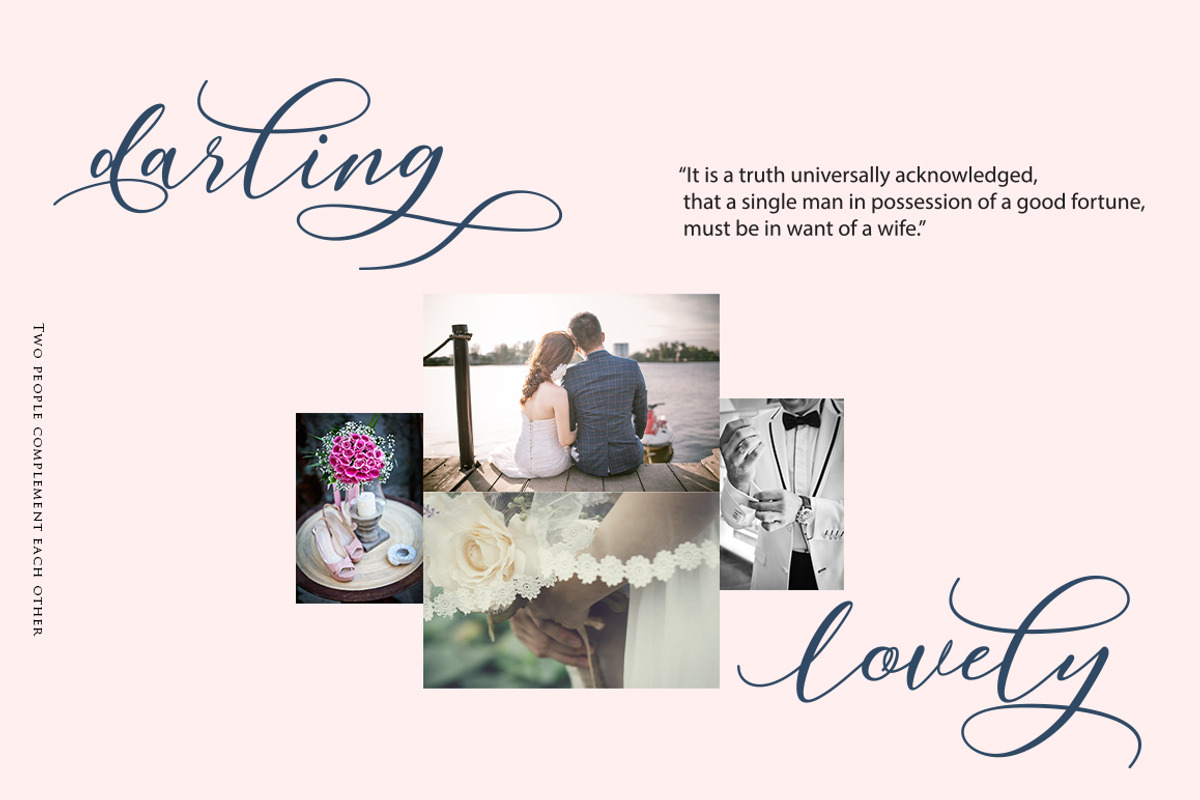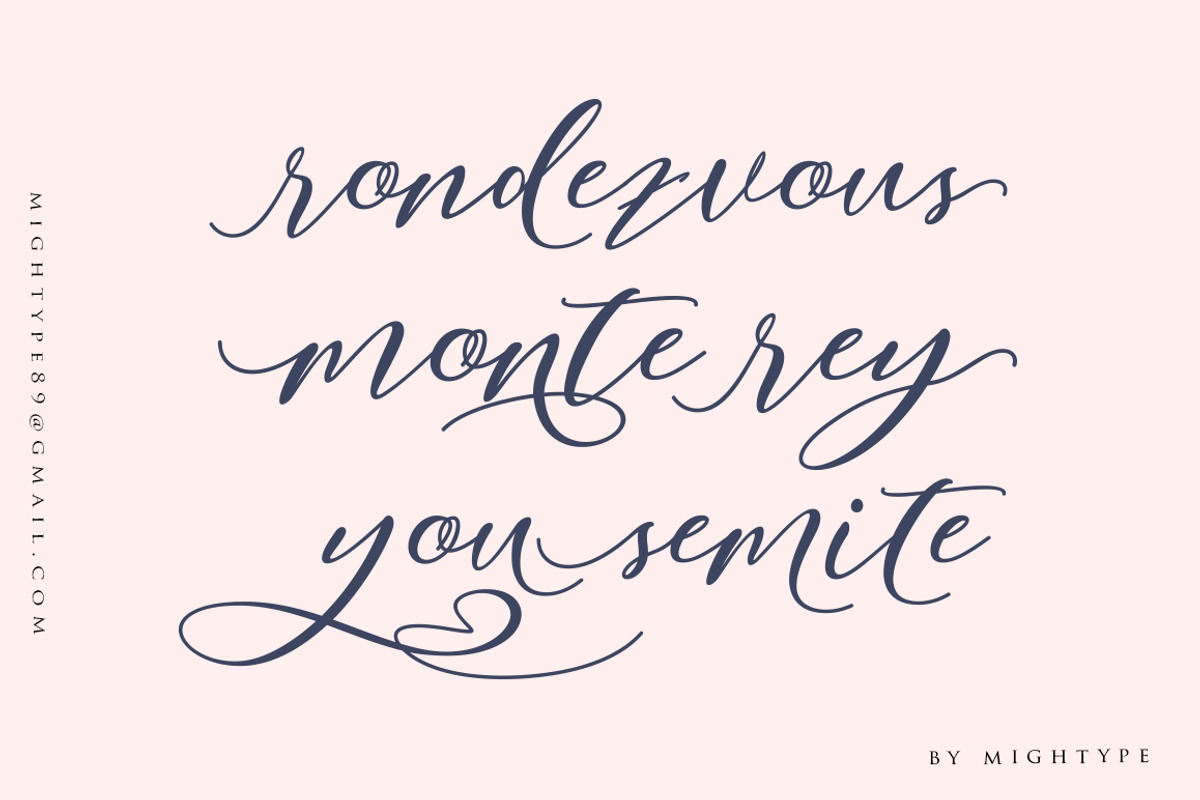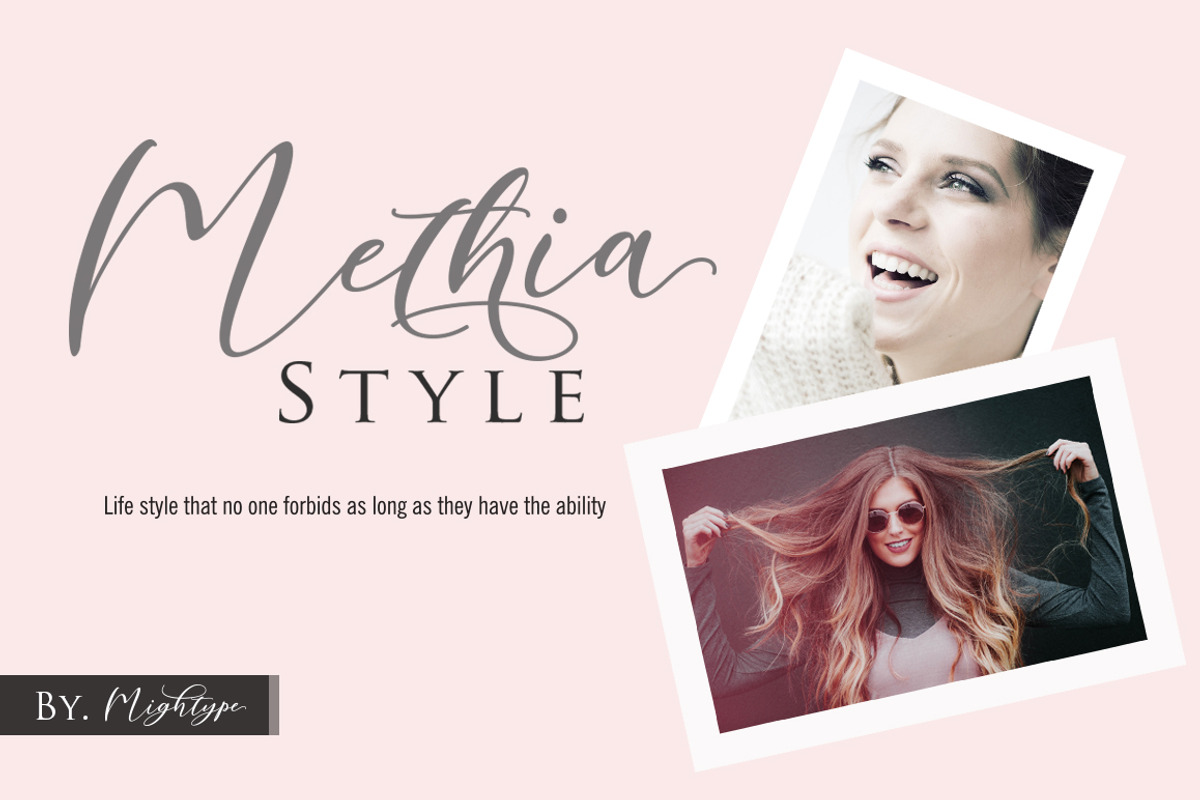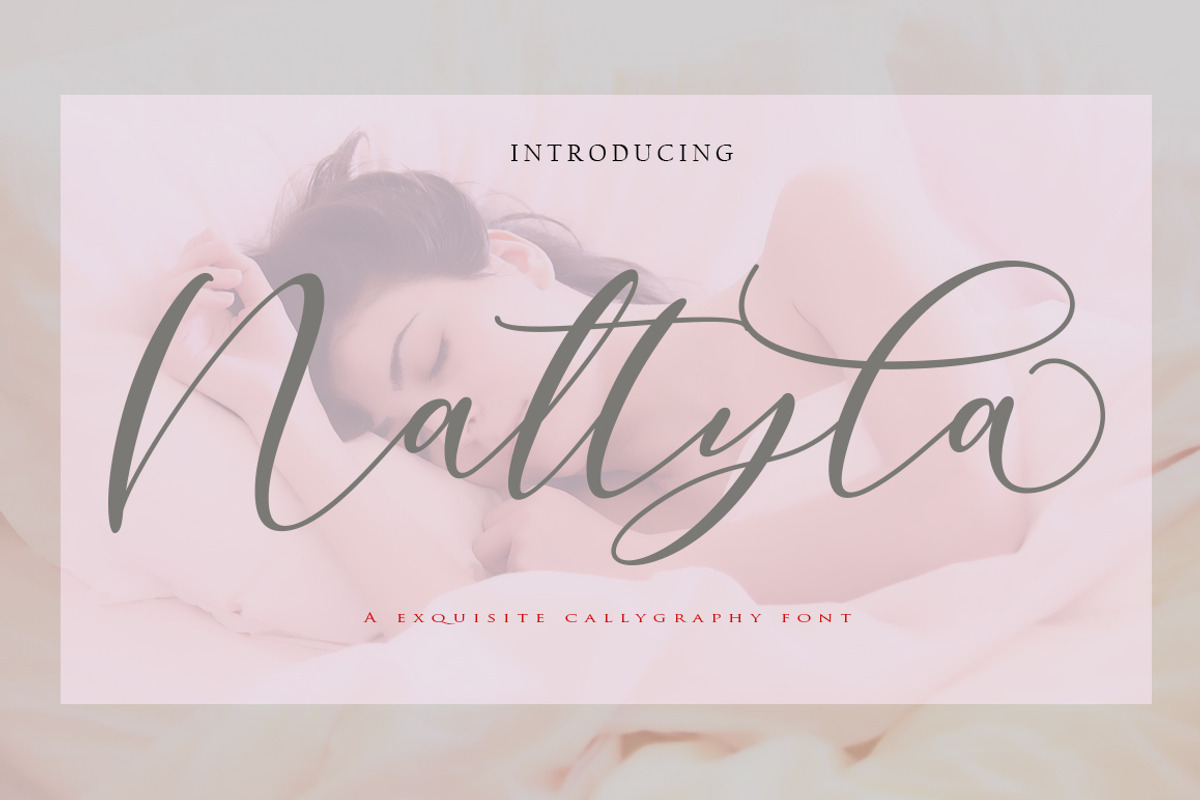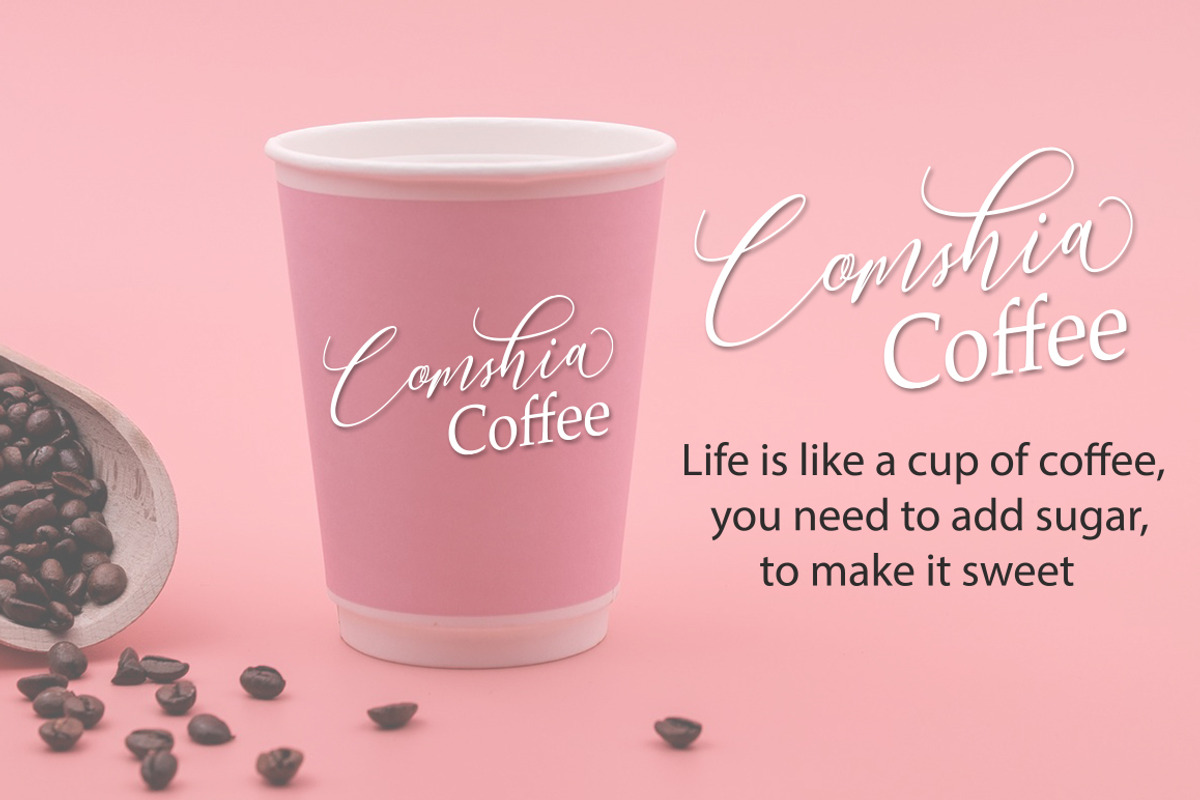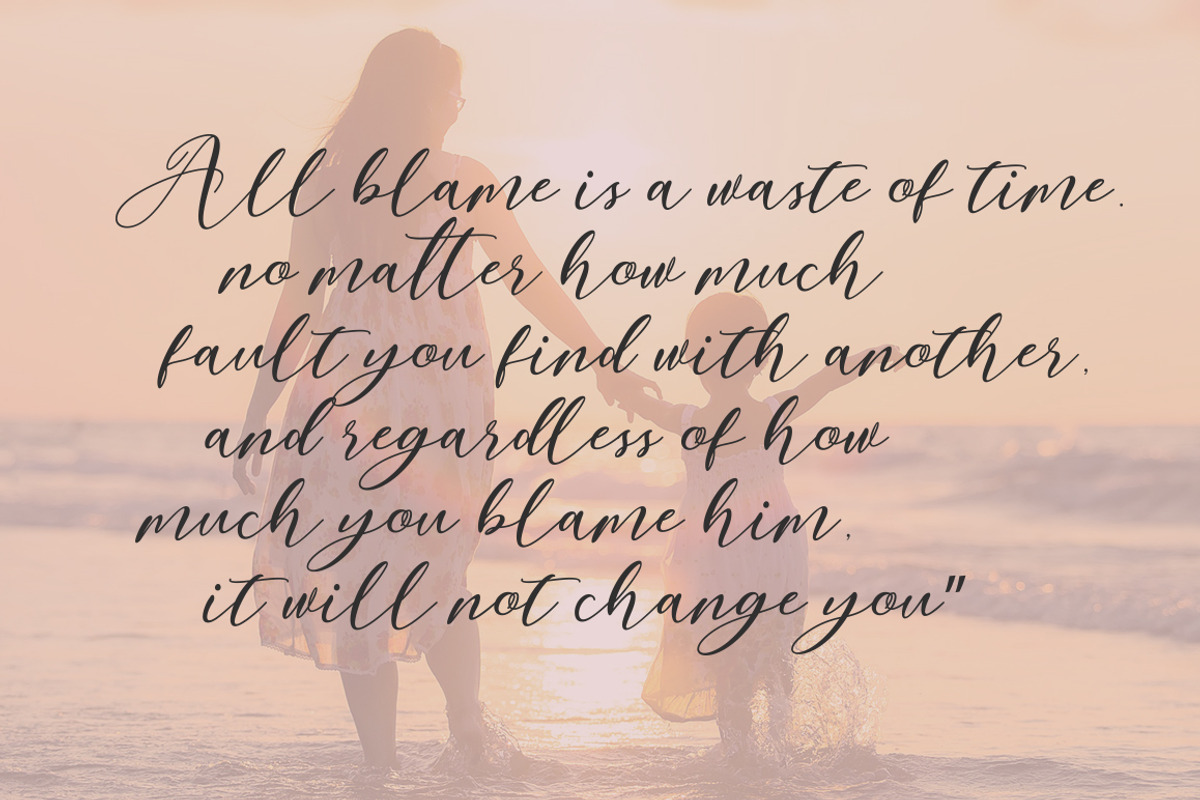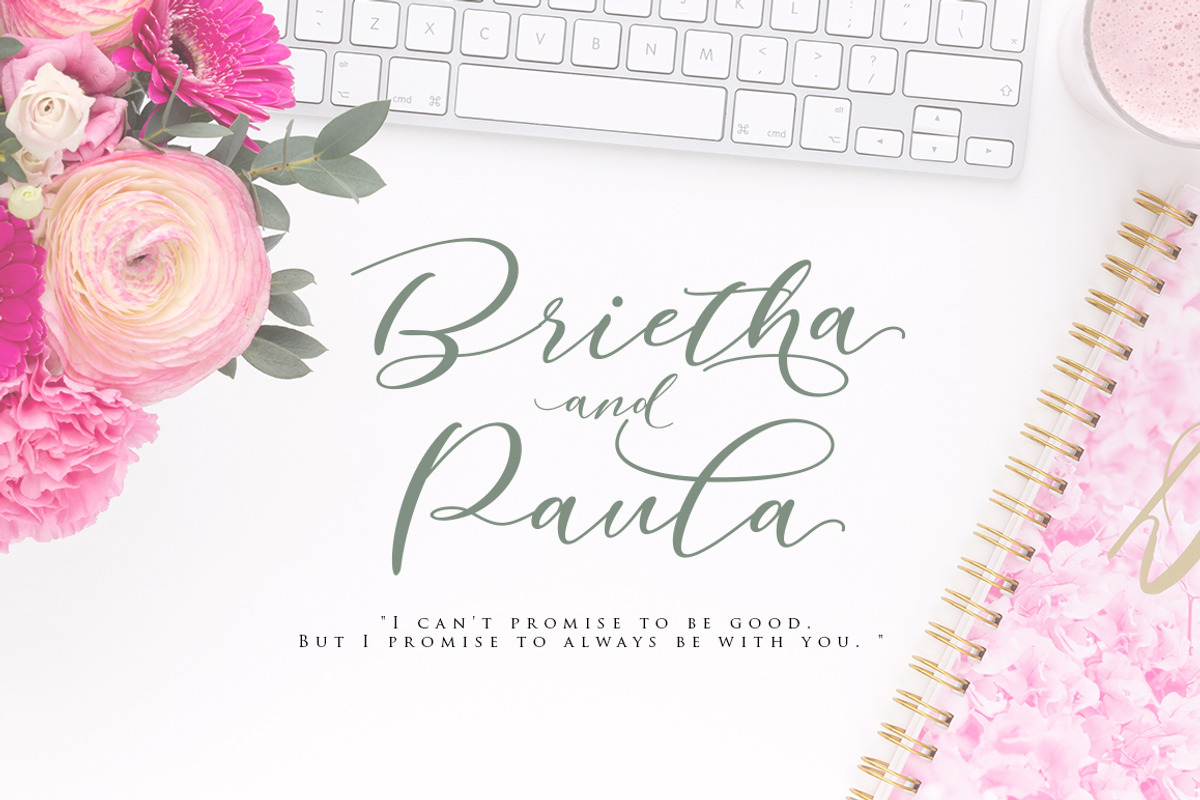
A New Nattyla
Nattyla Script is a modern calligraphy font with the current handwriting style, this font is perfect for branding, wedding invites, magazines, mugs, business cards, quotes, posters, and more, you can try first if you want to buy this font.
Nattyla Script is equipped with 328 glyphs. and by having many of these glyphs there will be able to choose the letters according to your likes, lots of variations and options for each letter, so you can customize on your design choices.